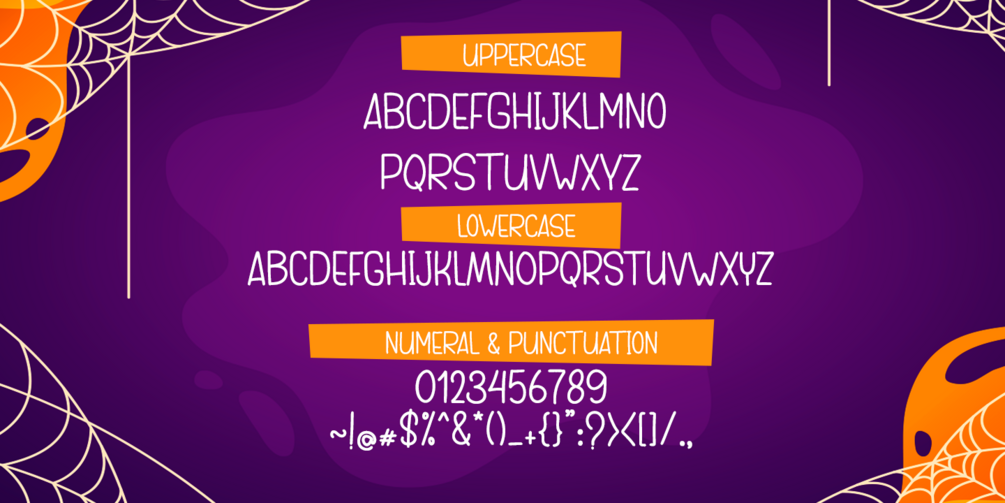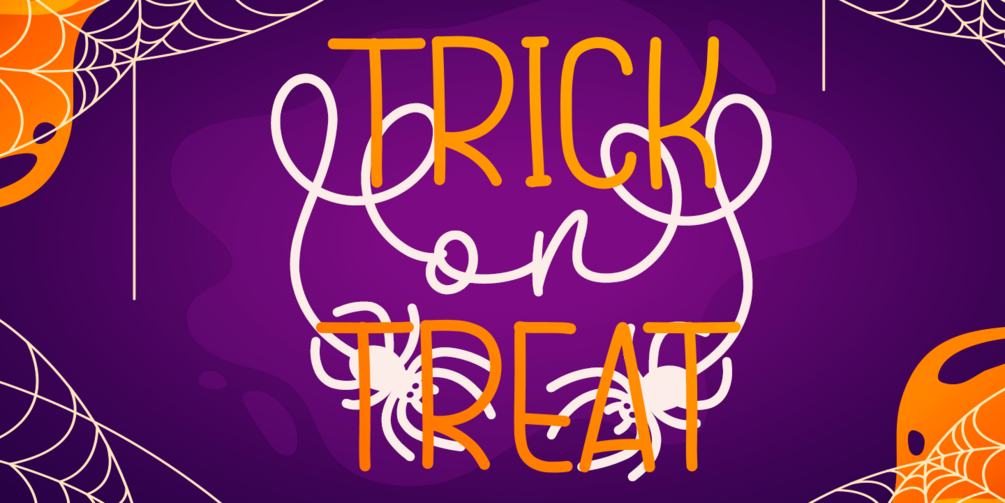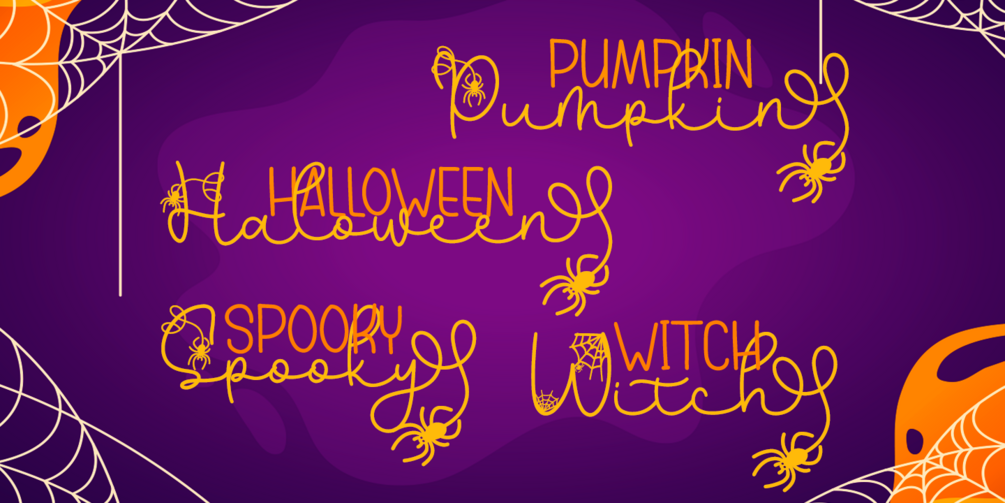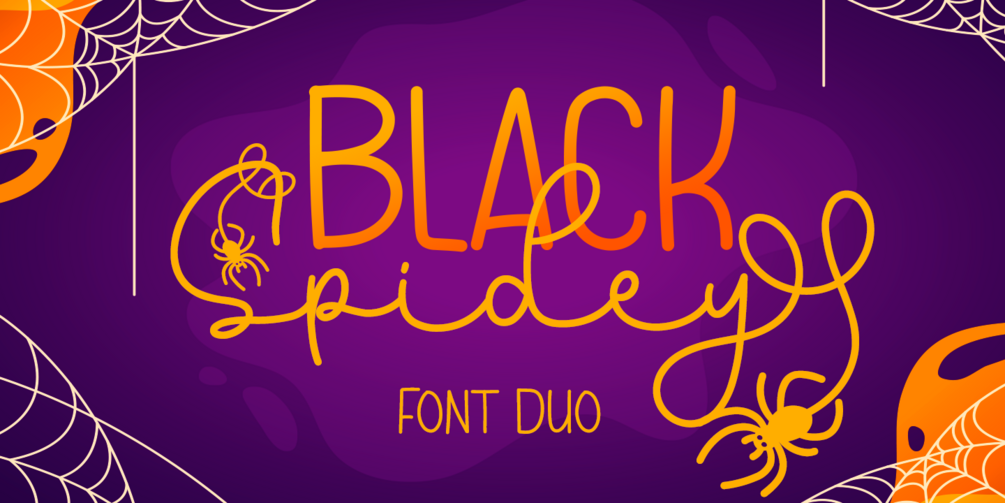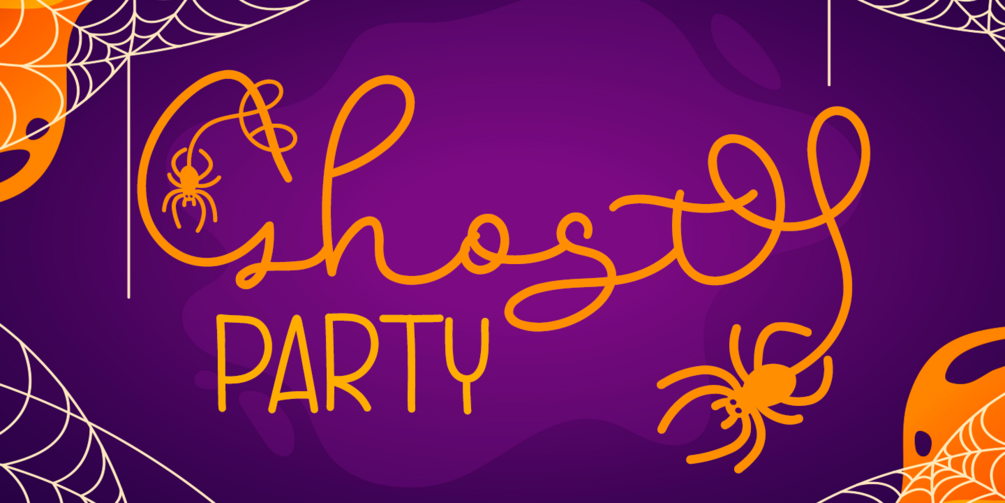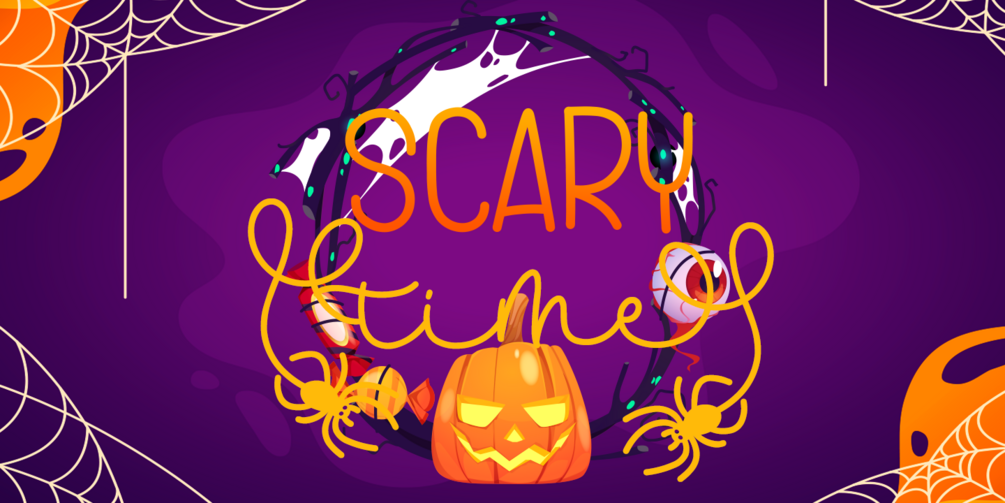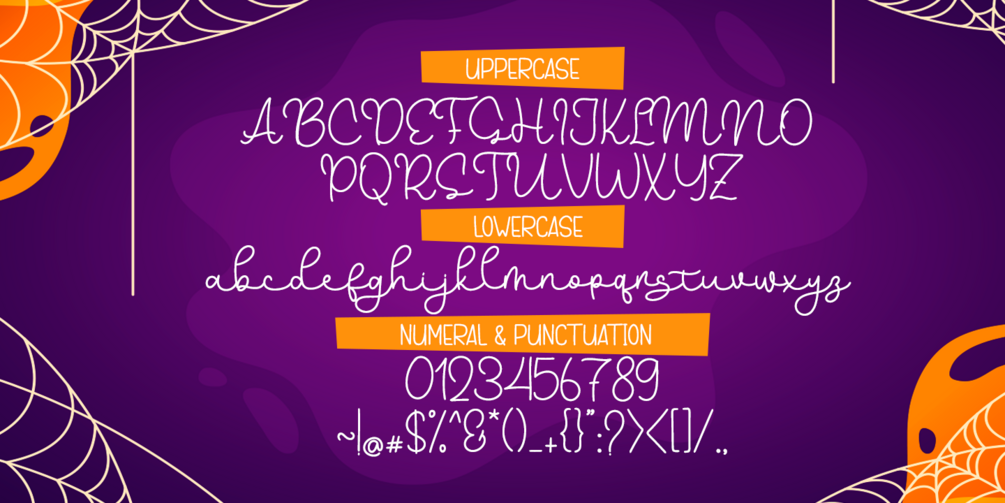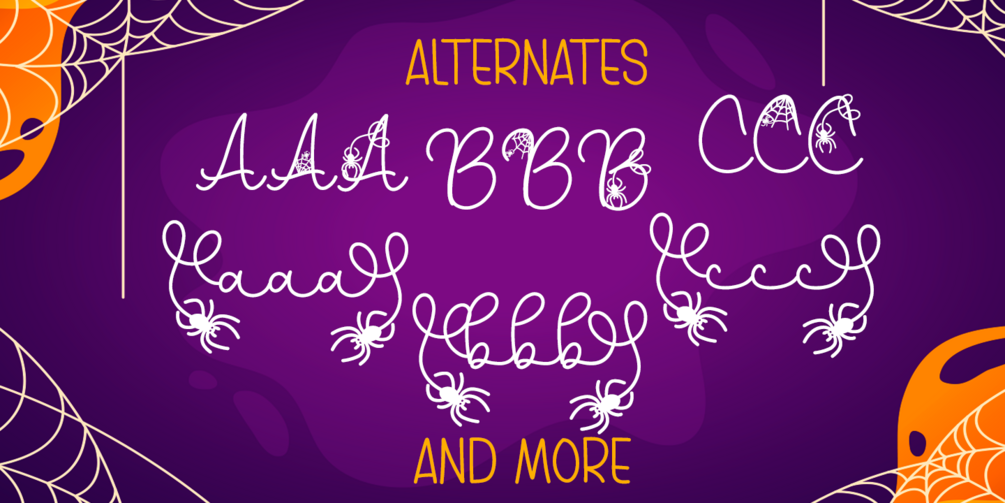
Black Spidey - Font Duo
Black spidey is a fun duo font with a scary and cute decorative Halloween theme. Masterfully designed to become a true favorite, this font has the potential to bring each of your creative ideas to the highest level!. This font is PUA encoded, which means you can access all of the glyphs and swashes with ease!